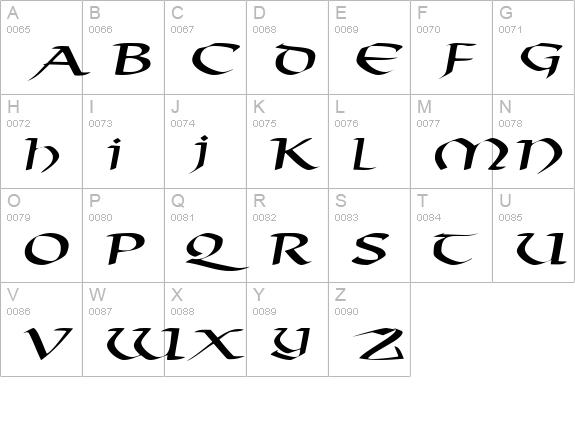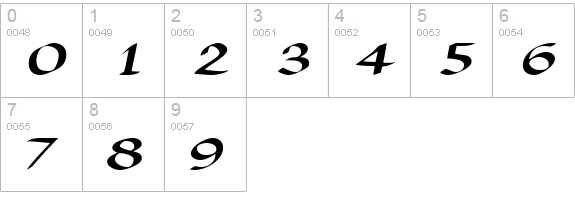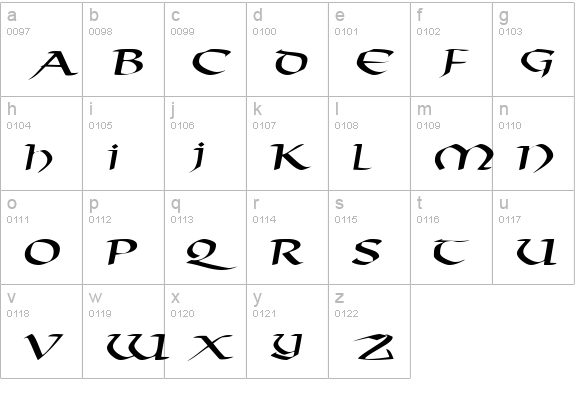
AmorosoSCapsSSK Font Details
AmorosoSCapsSSK font is a beautifully crafted typeface that exudes elegance and sophistication. Its stylish and unique design makes it perfect for adding a touch of luxury to any project. The intricate details of the font give it a timeless appeal that is sure to captivate any audience. The AmorosoSCapsSSK font is not only visually stunning but also highly versatile, making it suitable for a wide range of design applications. Whether you are creating branding materials, invitations, posters, or any other design project, this font will surely make a statement. Best of all, this exquisite font is available for free download at FontsMarket.com. So, you can easily add this stunning typeface to your collection without any cost. Don't miss out on the opportunity to enhance your designs with the beauty and charm of AmorosoSCapsSSK font. Download it today and start creating captivating designs that will leave a lasting impression.